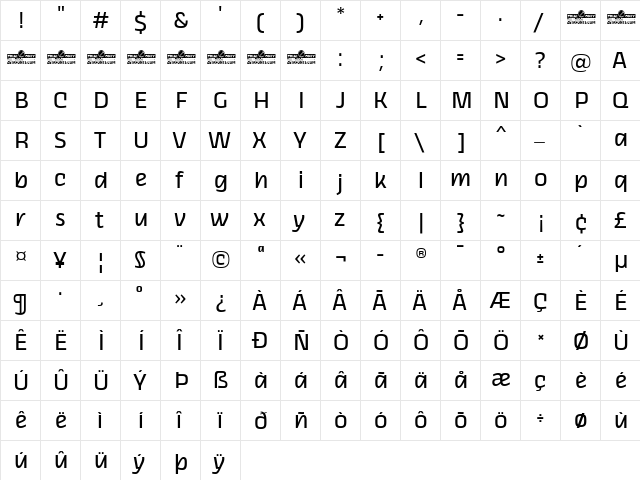
Thicker Trial Regular Upright
| Foundry | Zetafonts |
| Designer | Francesco Canovaro |
Design Context for Thicker Trial Typeface
Thicker Trial takes a measured approach to typography — its balanced proportions and neutral character make it a reliable workhorse for both digital and print work.